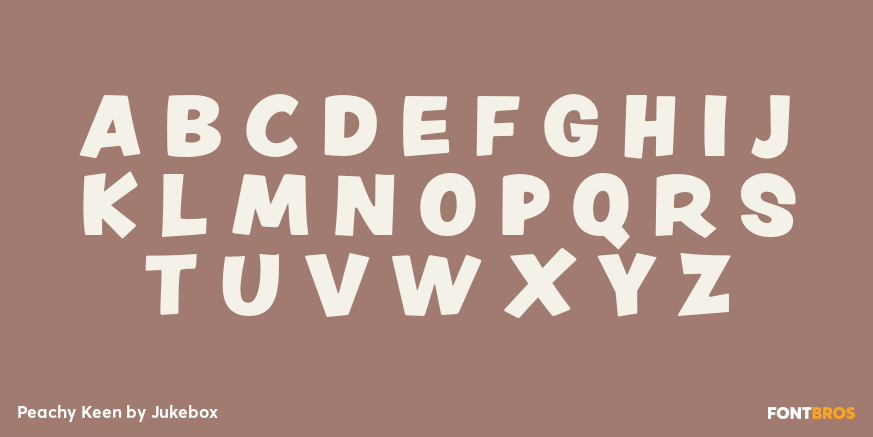
Peachy Keen
Font Family by Jukebox
Peachy Keen welcomes you with child-like innocence and fun. The playful sans serif letterforms are perfect for any design where a light hearted feeling is needed.